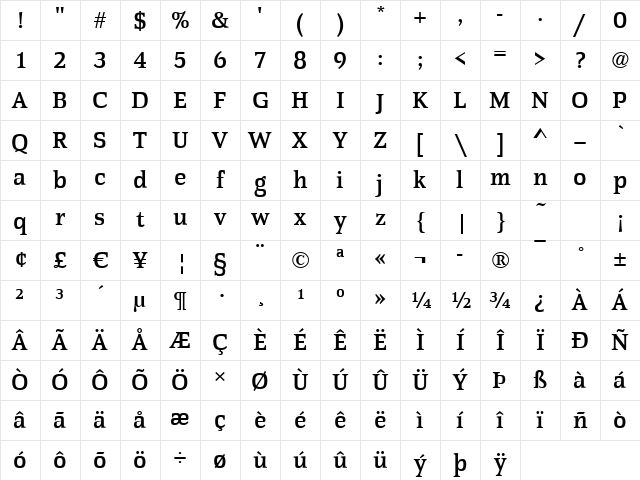
Pollock-Book Regular
Design Context for Pollock-Book
Pollock-Book is a composed and adaptable typeface that performs quietly and consistently across a wide range of design contexts.
Pro Tip: Use Pollock-Book in both headline and body roles to test its range before committing to a single application.